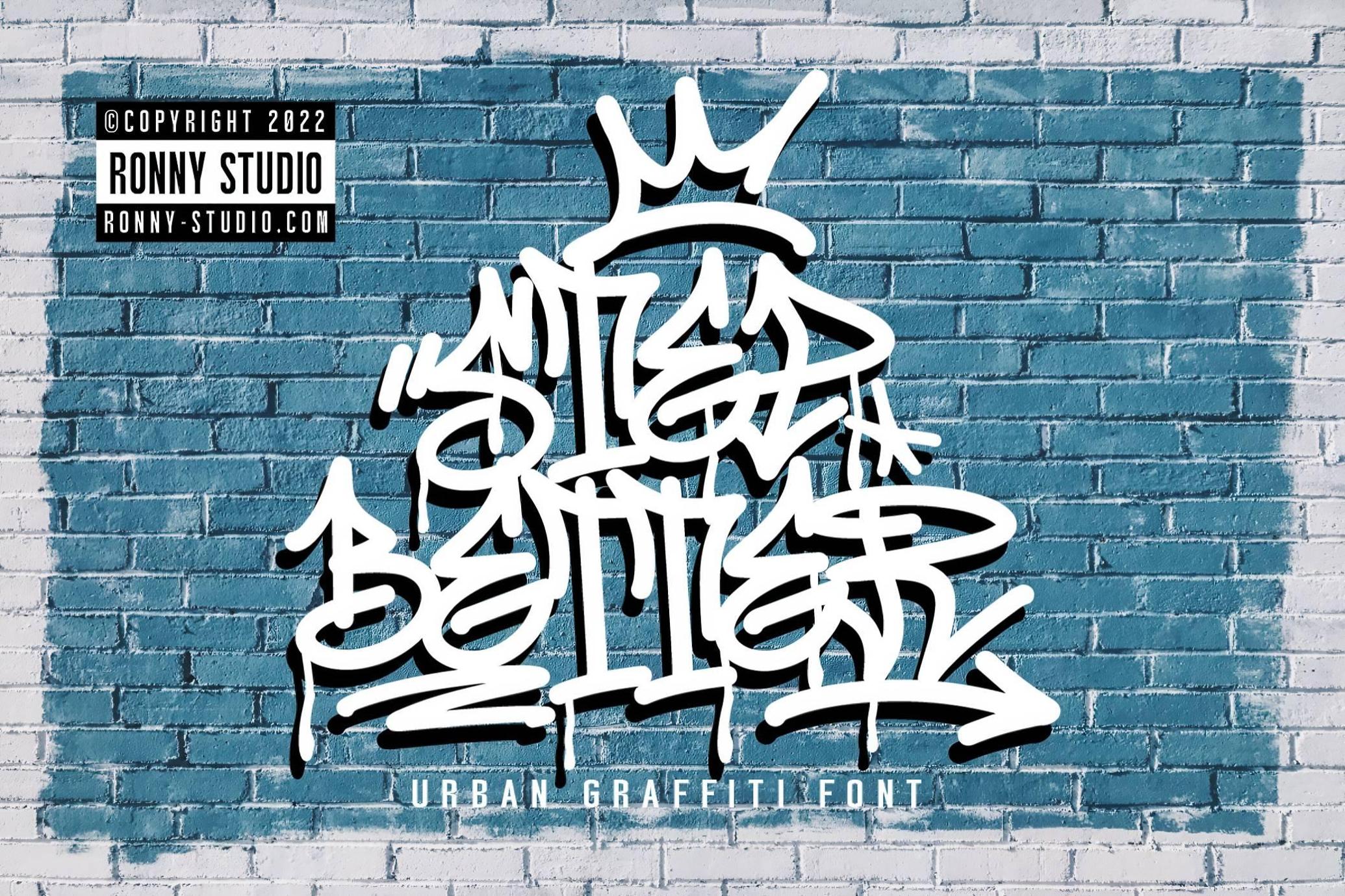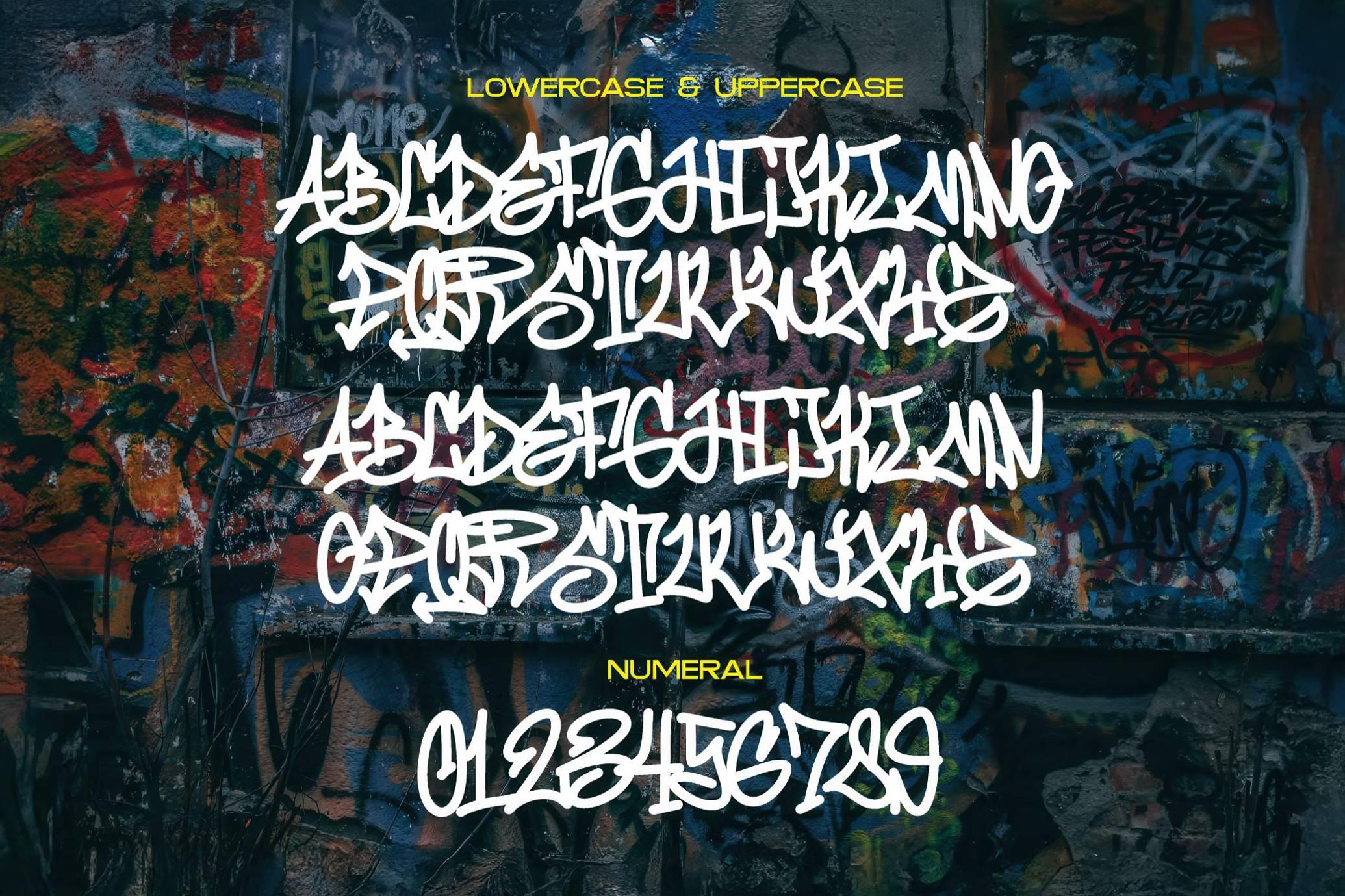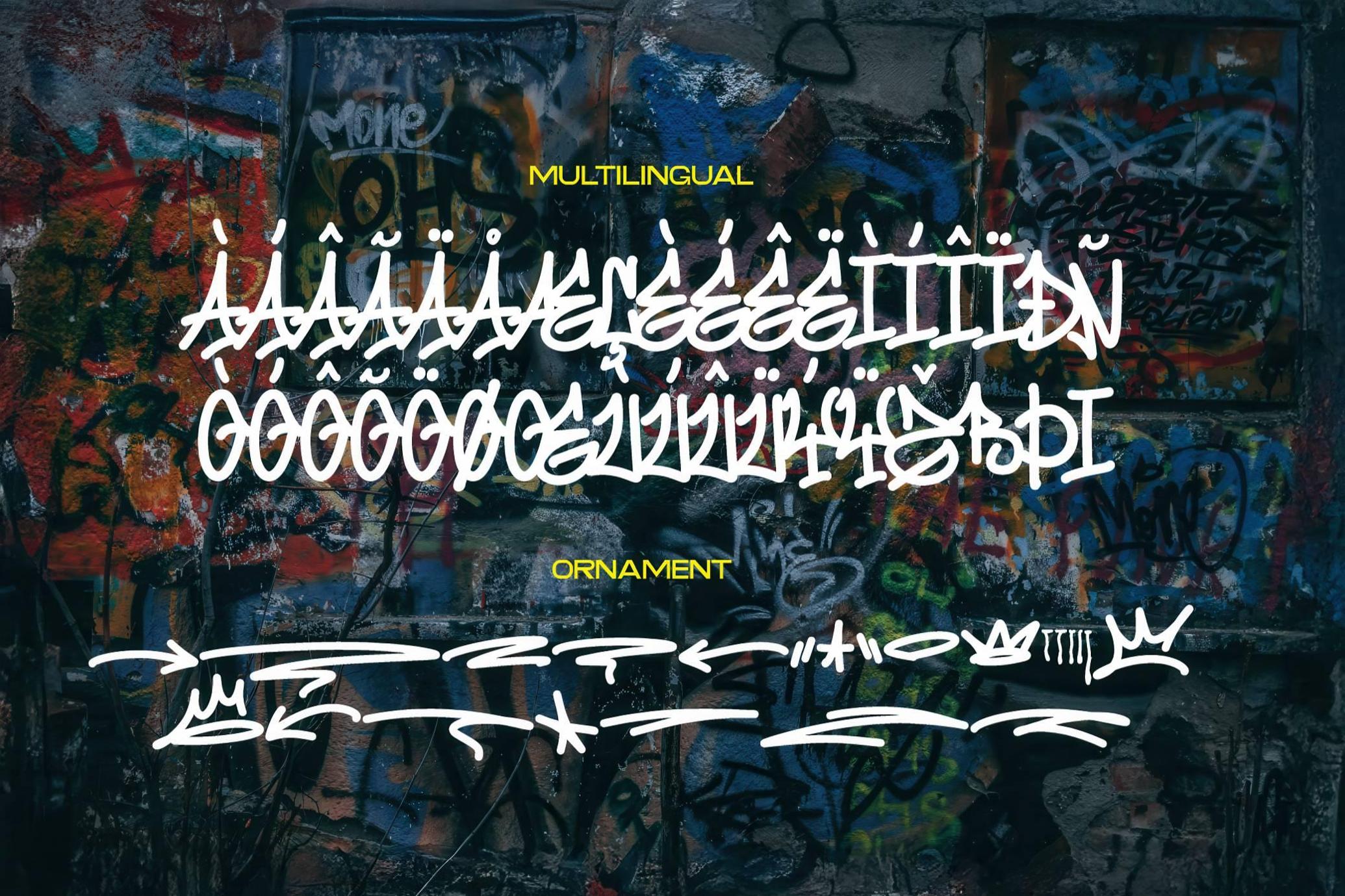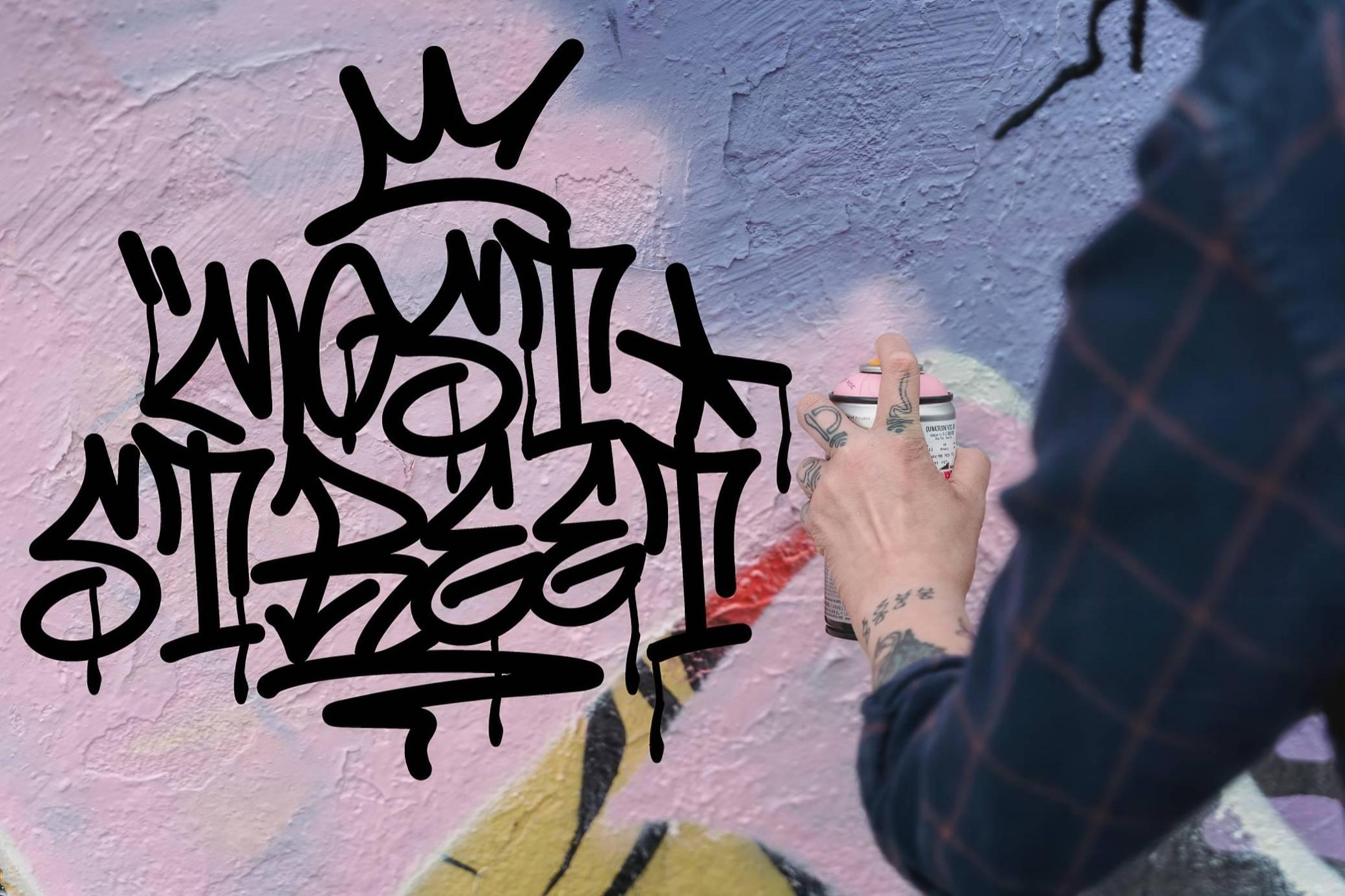
Step Better — Urban Graffiti Tags Font
Step Better is what tag graffiti is, in a word. It is unfiltered and buzzing with streetwise confidence. Its tags mimic graffiti — and speak it fluently, channeling the pulse of subway tunnels, skate parks, and old warehouse walls. Every curve, slash, and splatter feels hand-thrown. With a complete character set, plus swashes, ornaments, and multilingual support, this font is a goldmine for edgy branding, streetwear packaging, zines, event posters, music visuals, flyers, and clothing labels with attitude.